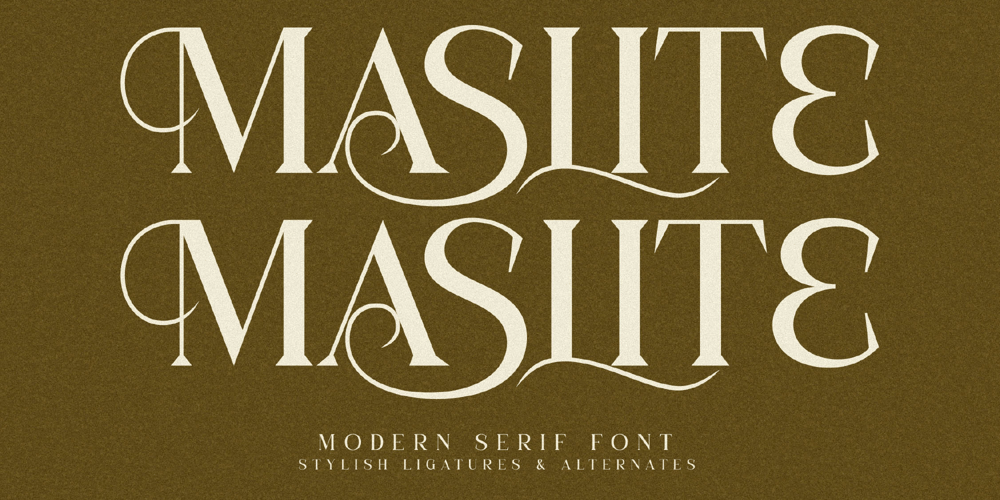
Maslite Font Family was designed by Heru Utama Putra and published by Letterena Studios. Maslite contains 2 styles and family package options. Maslite is a stylish and elegant serif font. Contemporary and fresh, it is perfect for any design you wish to create. Add it to your creative projects and make them outstanding.